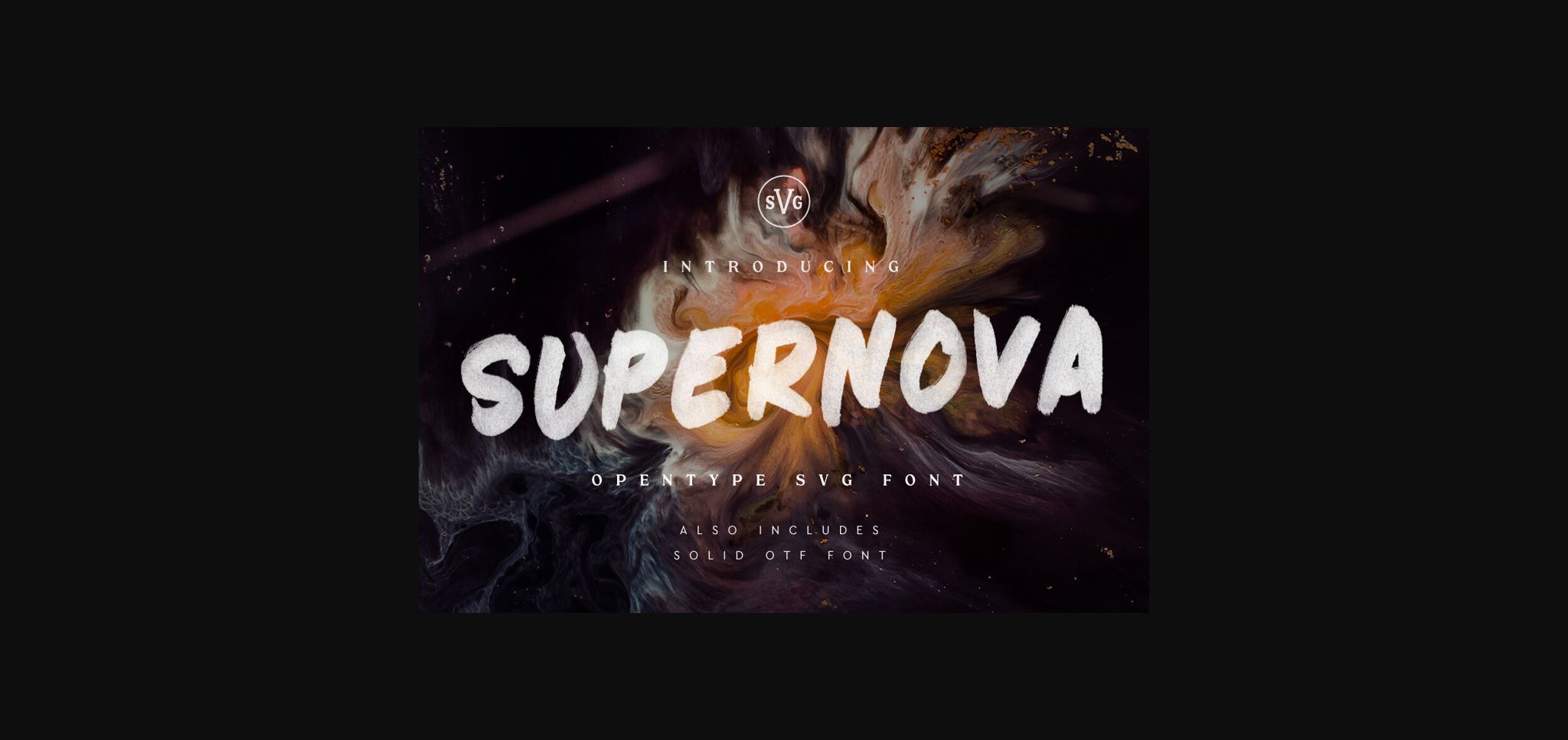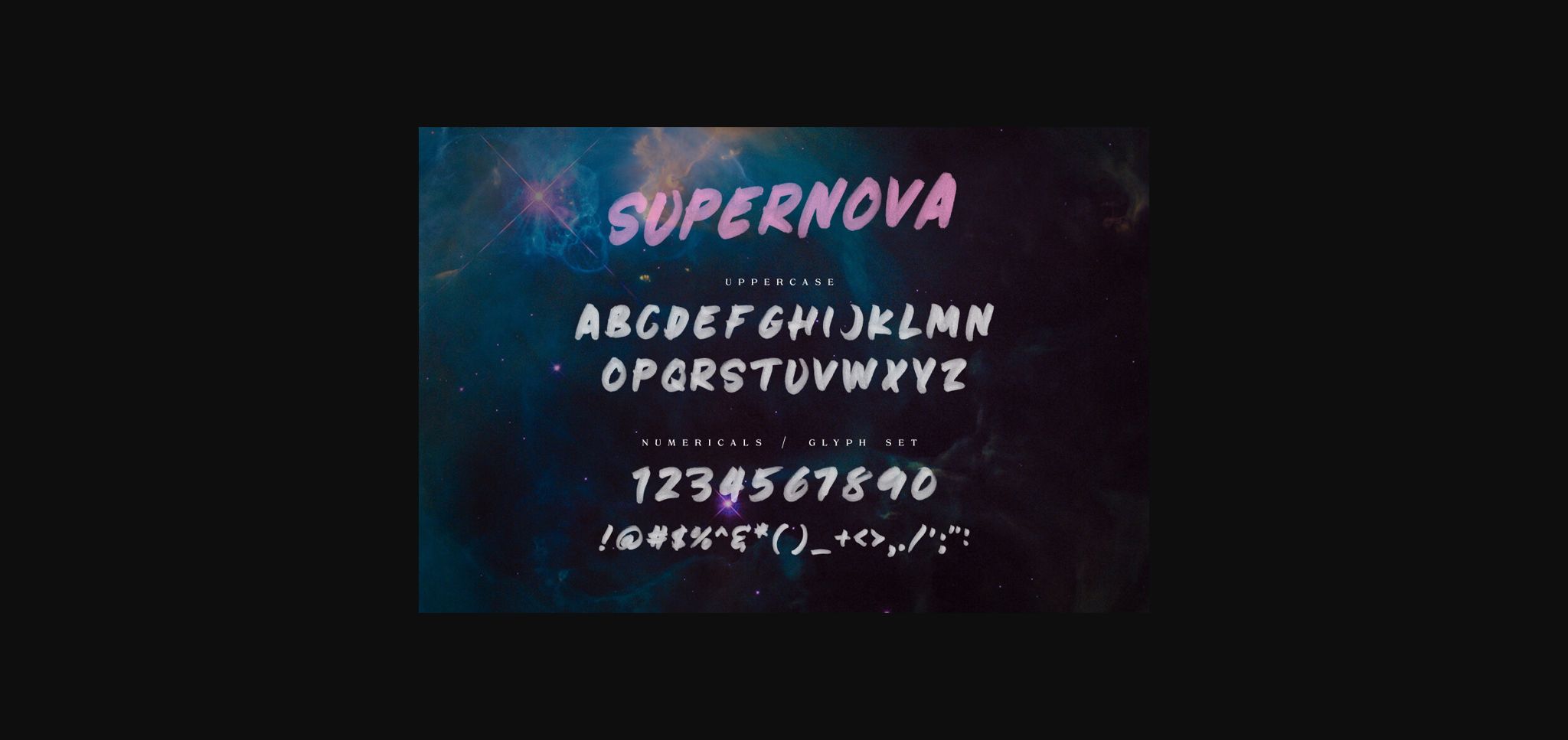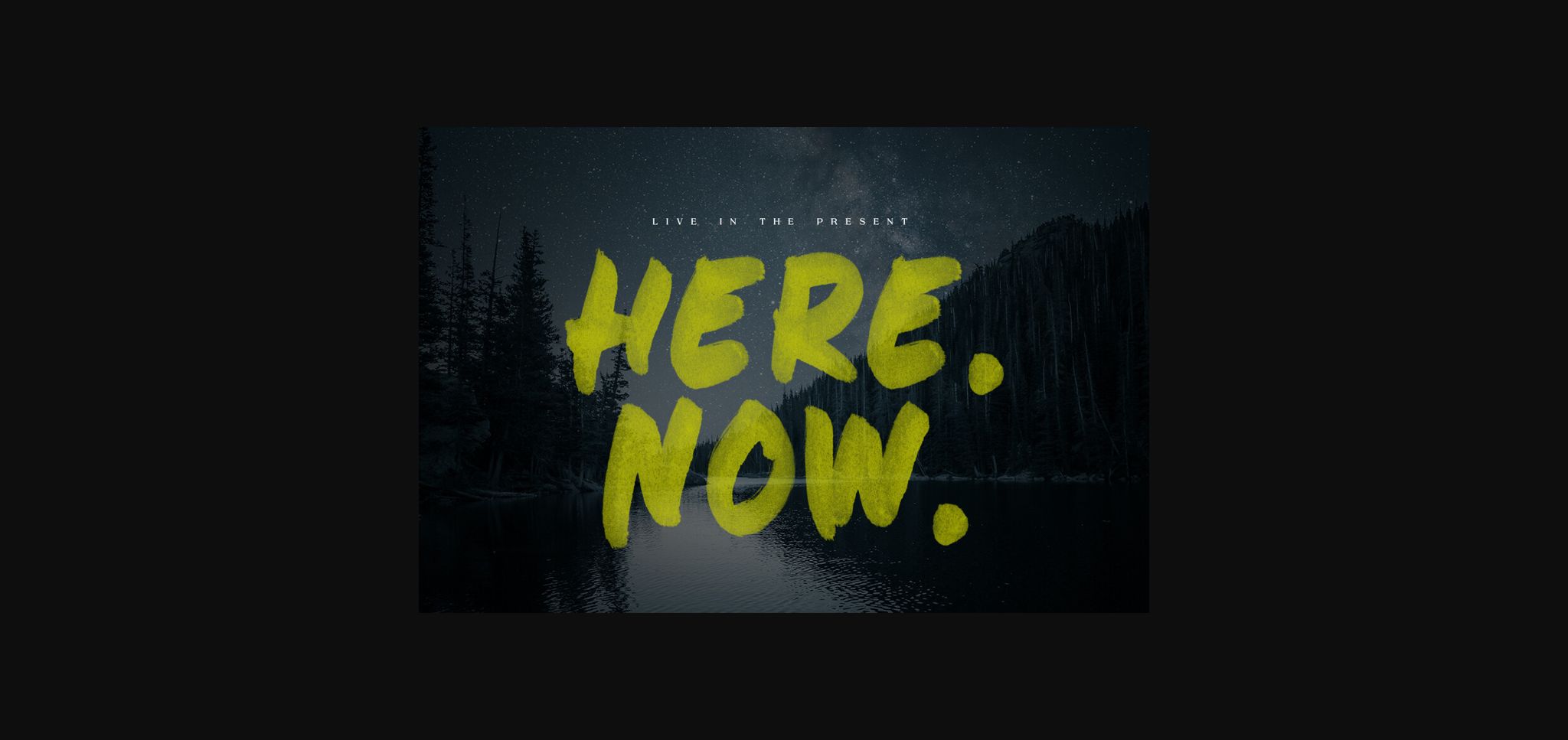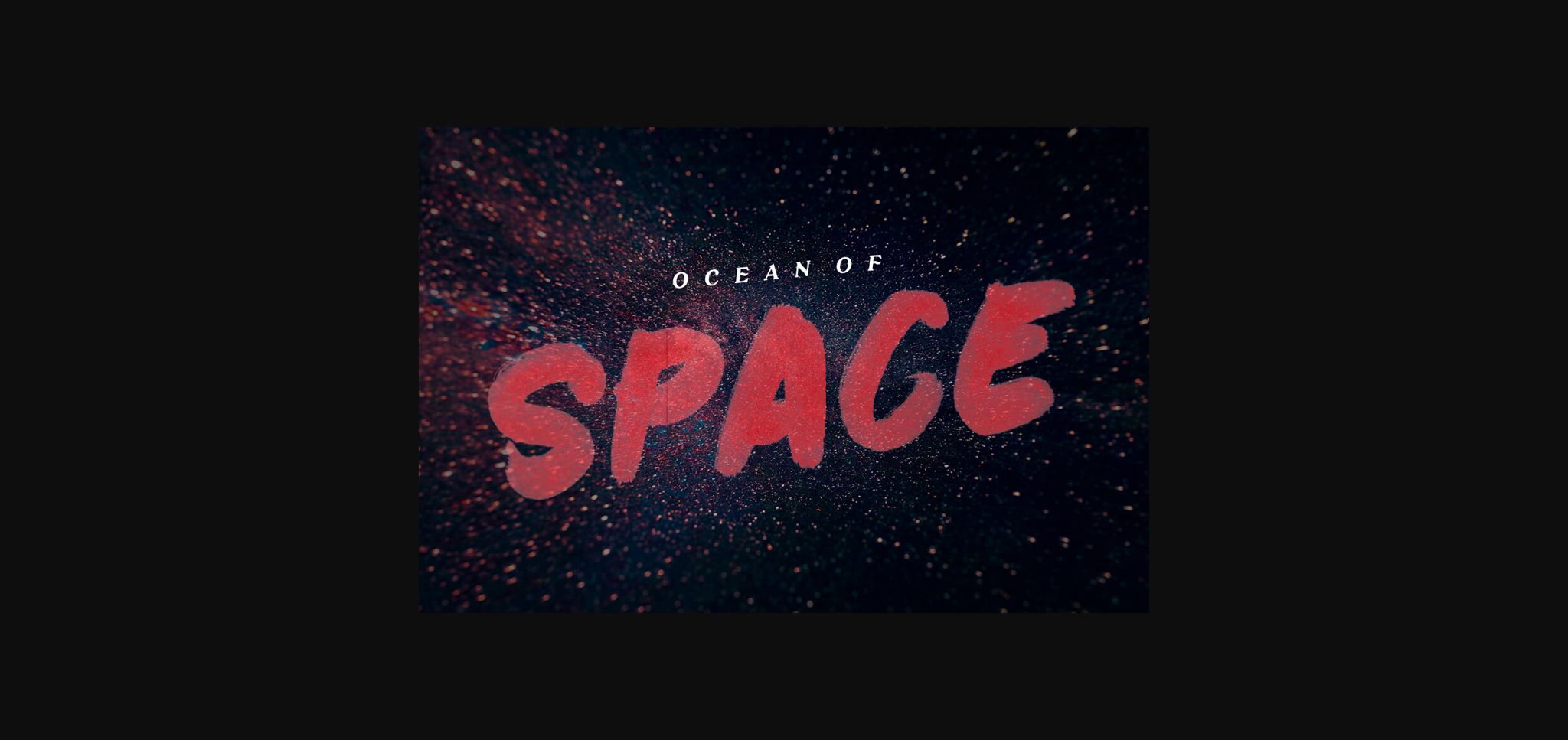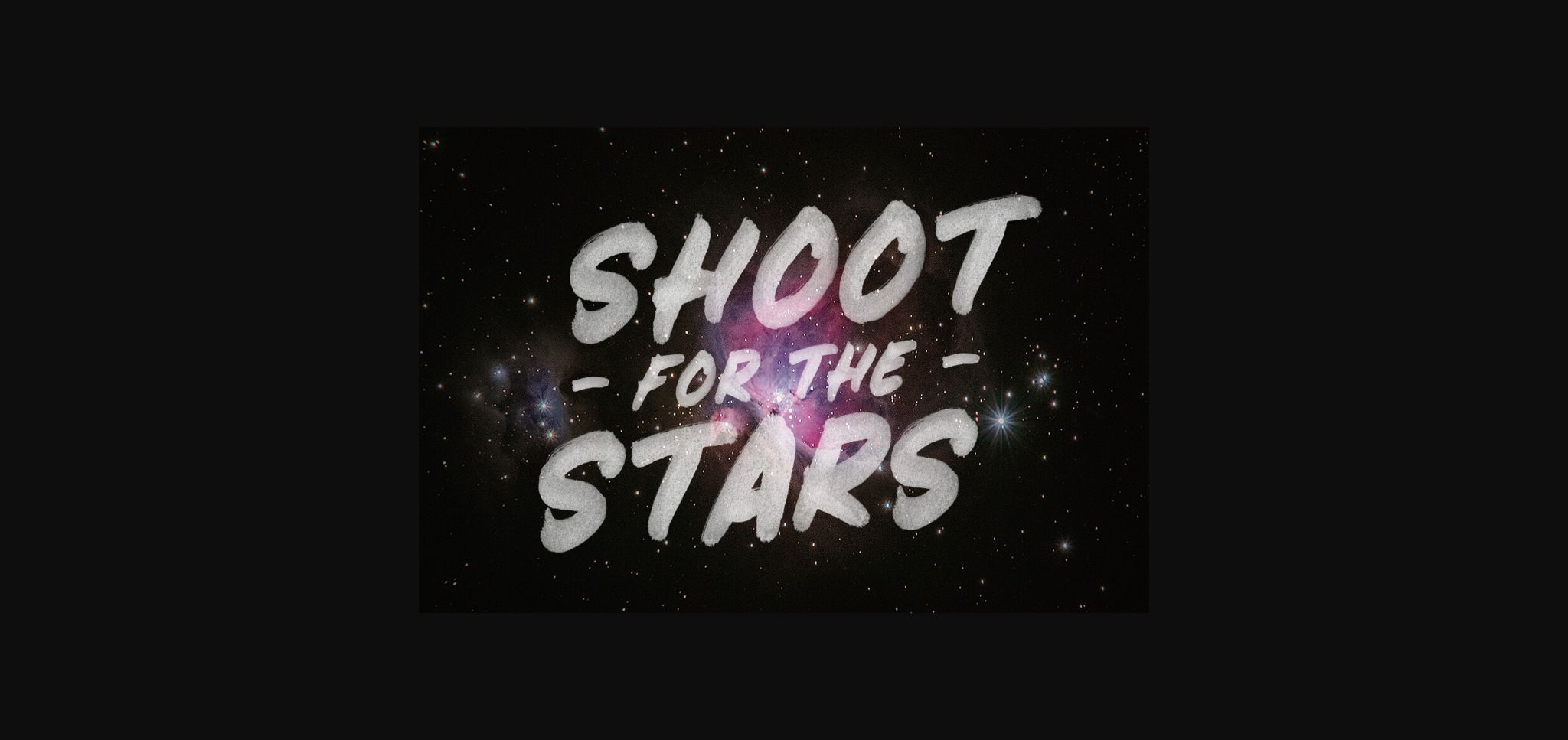
About Supernova Font
Supernova is a brand new bold hand painted sans serif font!
This font is great for making big, bold statements and works great for marketing, advertising, headlines, social media posts & much more!